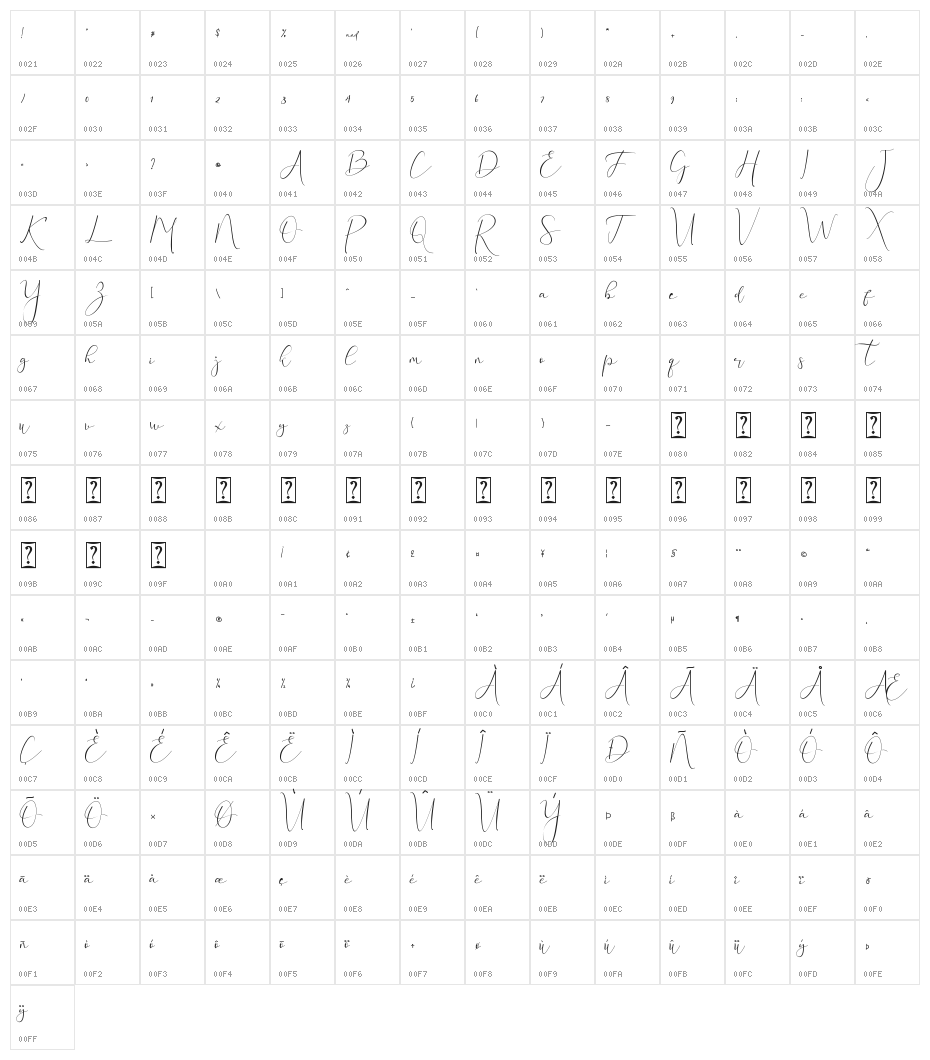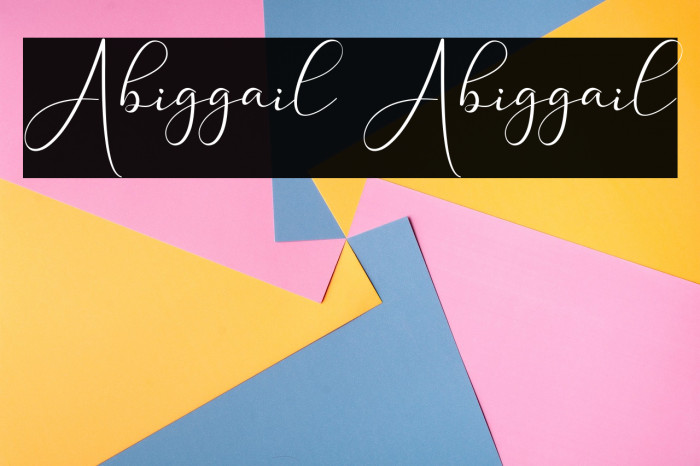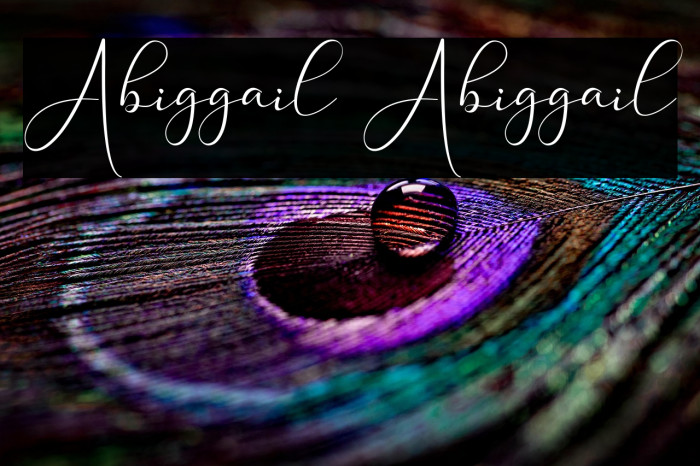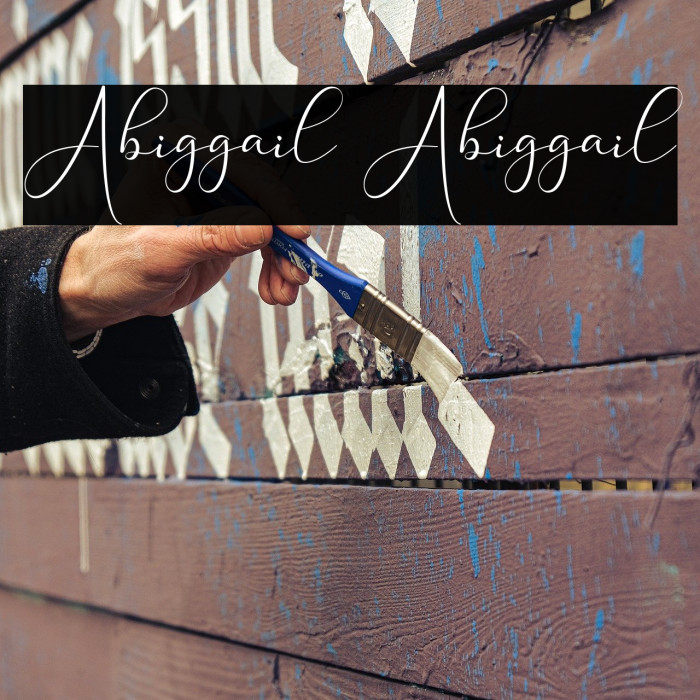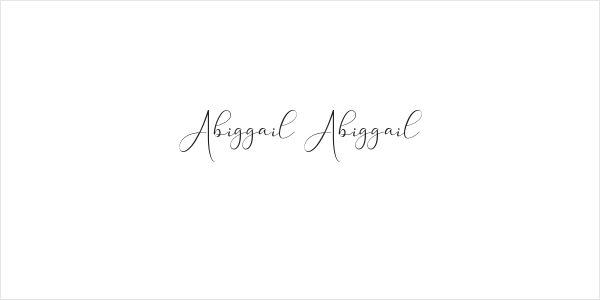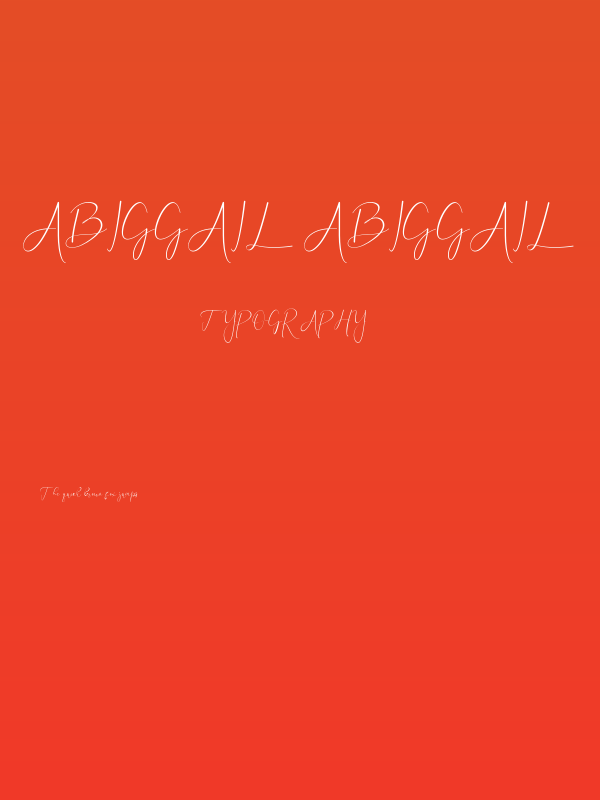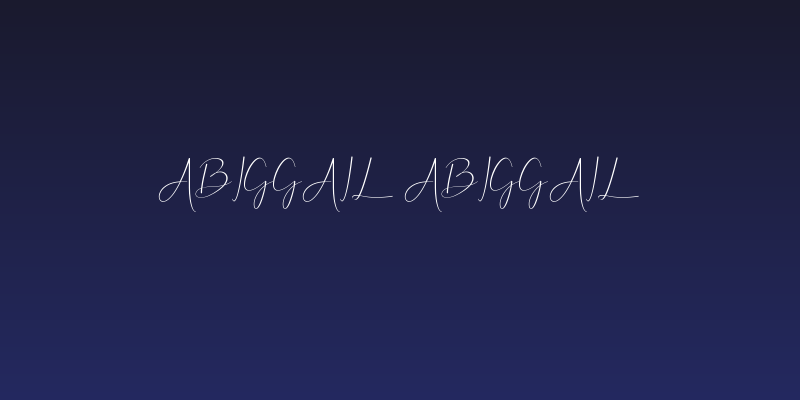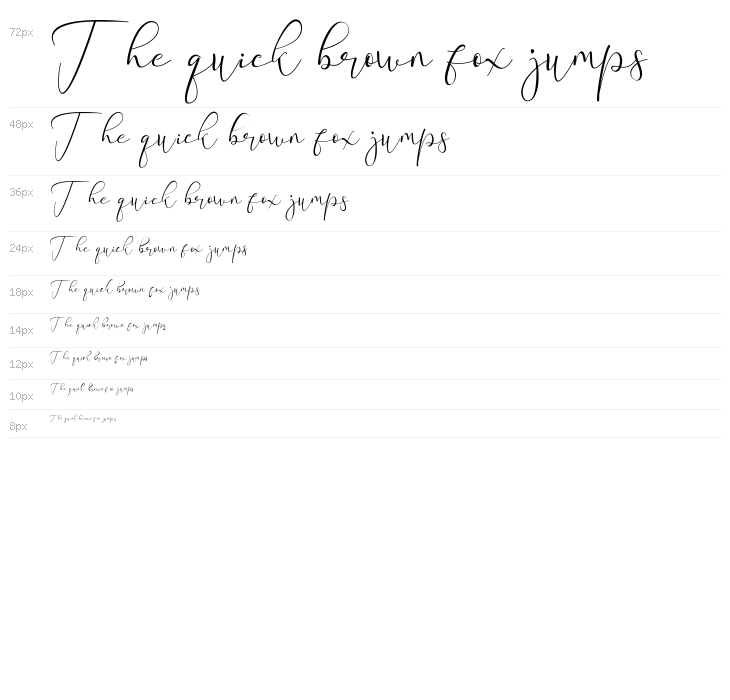
Abiggail Font
Abiggail Description
This elegant script font features a delicate and flowing style, characterized by its thin, graceful strokes and fluid connections between letters. The uppercase letters exhibit a sophisticated flair with sweeping curves and loops, while the lowercase letters maintain a consistent, smooth flow that enhances readability. The numerals are designed with a similar attention to detail, ensuring they complement the overall aesthetic. Special characters are thoughtfully crafted to match the font's refined style, making it suitable for a variety of decorative purposes. The font's airy and light appearance gives it a modern yet timeless feel, perfect for adding a touch of elegance to any project.